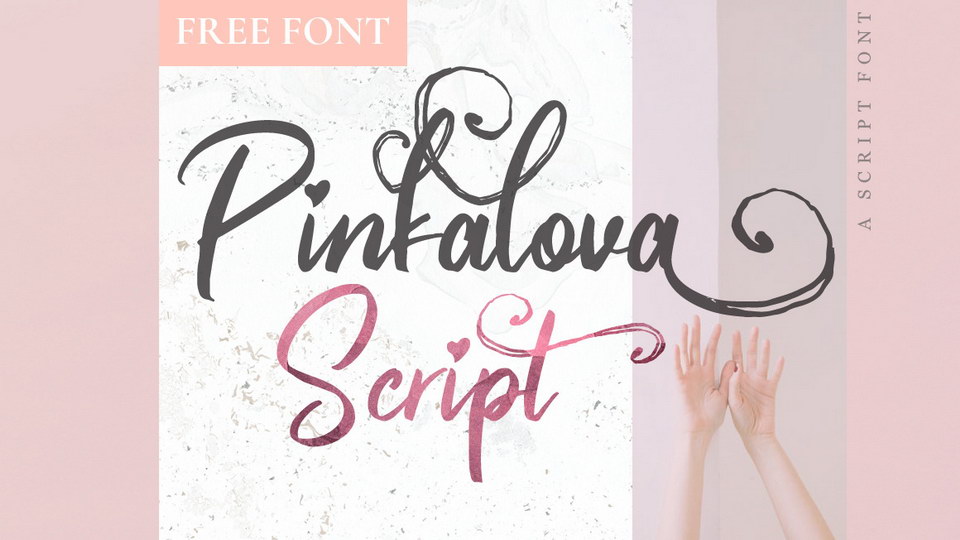
Download Pinkalova font, beautiful handwritten brush script with love and unique style. Pinkalova font is suitable for wedding design, event, t-shirt, logo, badges, sticker and other awesome works.